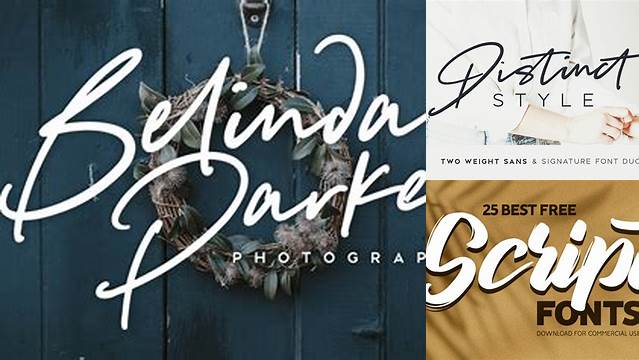
Distinct Script Alt Fonts: Free Download For Unique Style
Hey guys! Are you looking to add a touch of uniqueness and personality to your designs? You've come to the right place! In this article, we're diving deep into the world of distinct style script alt fonts. We'll explore why they're so awesome, where you can find them for free, and how to use them to make your projects really stand out. So, let's get started!
1. What Makes a Script Alt Font “Distinct”?
Okay, first things first, what exactly makes a script alt font distinct? Well, it's all about those special characters, unique swashes, and stylistic alternates that set them apart from your regular, run-of-the-mill fonts. Think of it as the font's way of showing off its personality! These fonts often mimic handwriting, giving a personal and elegant touch to any design. A distinct style script alt font can include things like exaggerated loops, varying stroke thicknesses, and additional flourishes that make them truly eye-catching. The beauty of a distinct style script alt font lies in its ability to add a handmade, authentic feel to digital projects. This is particularly useful for branding, invitations, and anything where a personal touch is desired. The distinct nature of these fonts ensures that your message is delivered with flair and memorability. For example, imagine a logo for a boutique or a wedding invitation; a distinct style script alt font can immediately elevate the aesthetic, making it feel more bespoke and carefully crafted. When choosing a distinct style script alt font, consider the overall tone you want to convey. Are you aiming for elegant and formal, or playful and whimsical? The right choice will enhance your design and communicate your message effectively. Remember, a distinct style script alt font isn’t just about looking pretty; it’s about conveying emotion and personality. So, let's explore the various facets that make these fonts stand out and how you can leverage their distinct qualities in your projects.